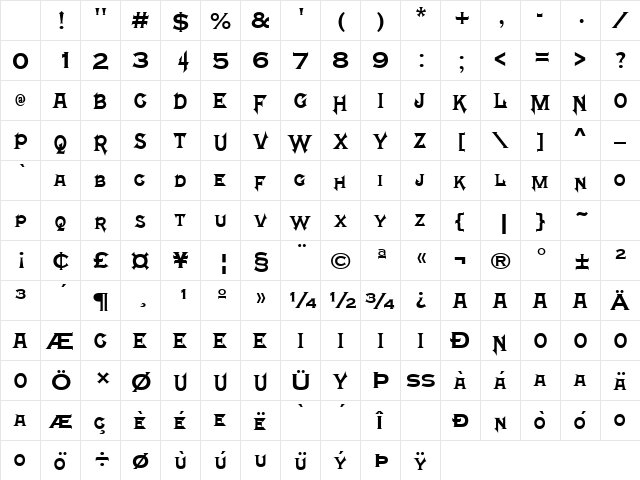
Mortal Kombat 4 Regular
Design Context for Mortal Kombat 4
Mortal Kombat 4 is a composed and adaptable typeface that performs quietly and consistently across a wide range of design contexts.
Pro Tip: Use Mortal Kombat 4 in both headline and body roles to test its range before committing to a single application.